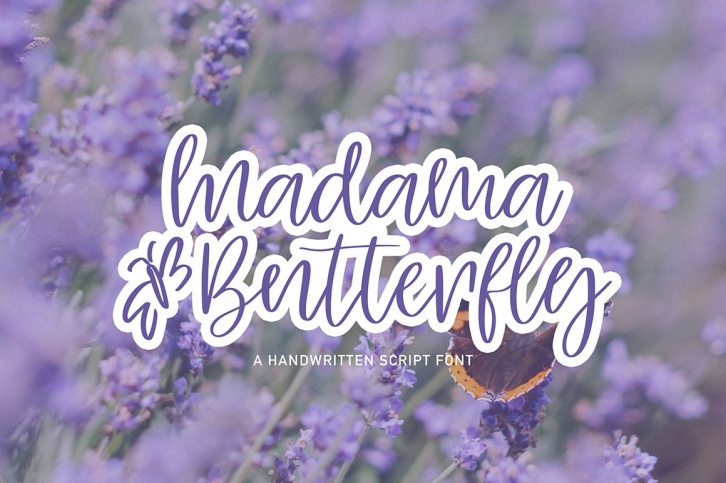
Madama Butterfly is a great font that was designed by Artifex Create. Imagine the amount of combinations you can create using this font! The archive is 17.8 MB and it was released on July 1, 2020. Madama Butterfly looks beautiful on wedding invitations, greeting cards, logos, posters, labels, t-shirt designs, logos, business cards and is perfect for use in ink or watercolor works, fashion, magazines, packaging and food menus, children's books and more!